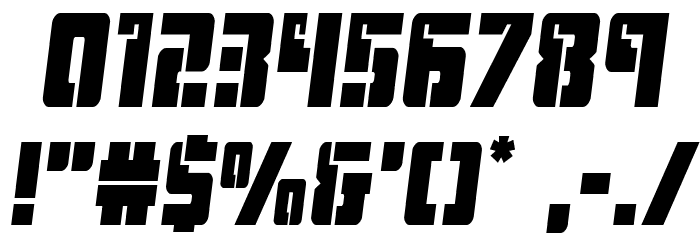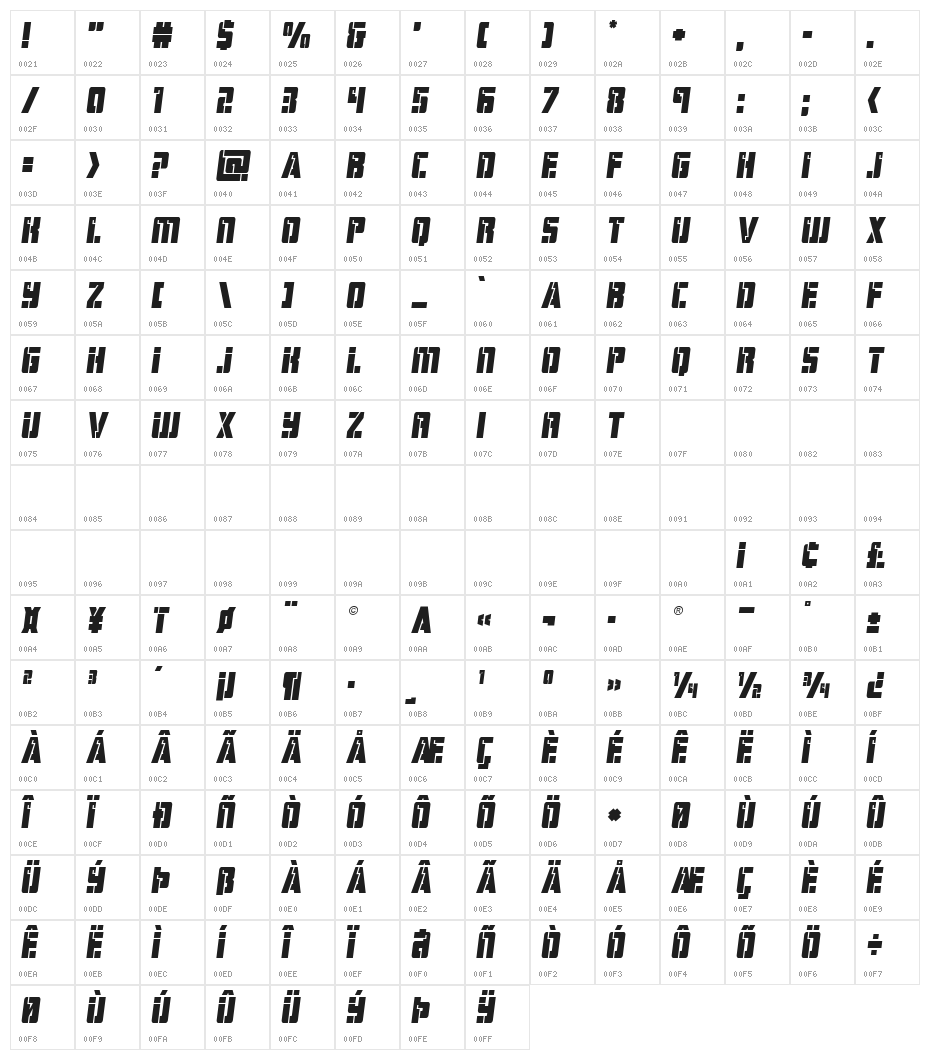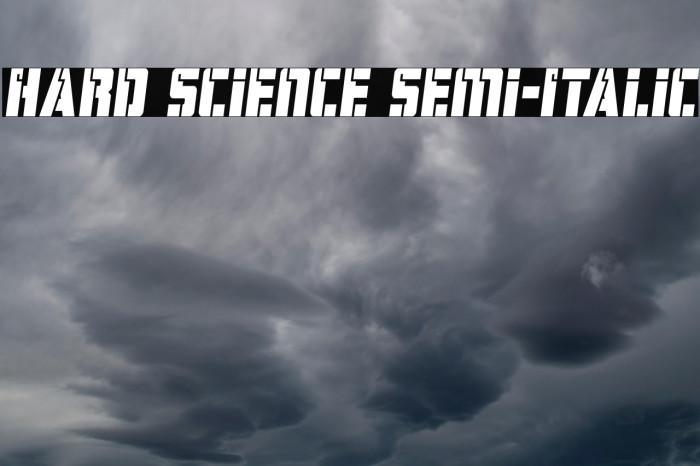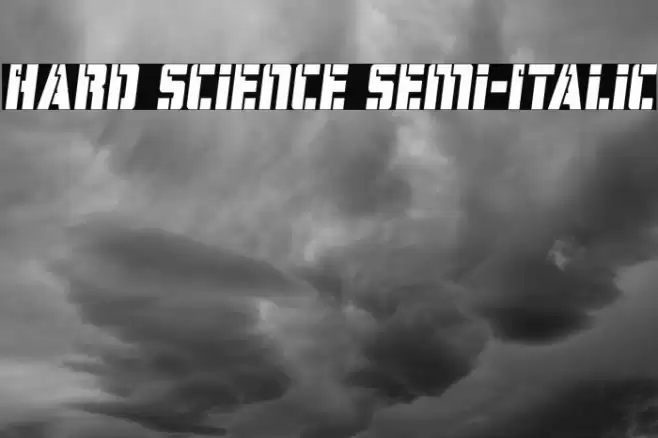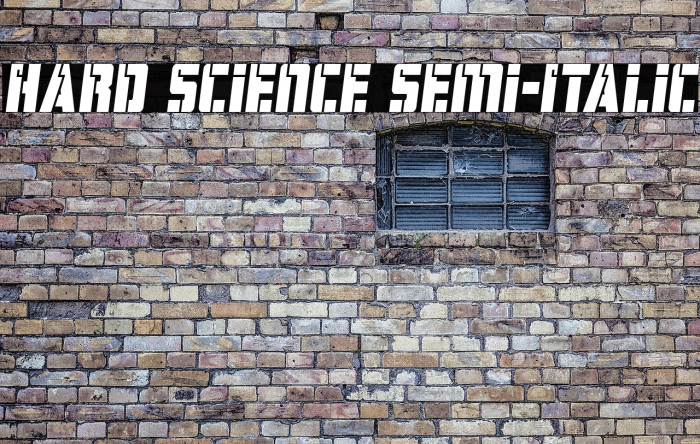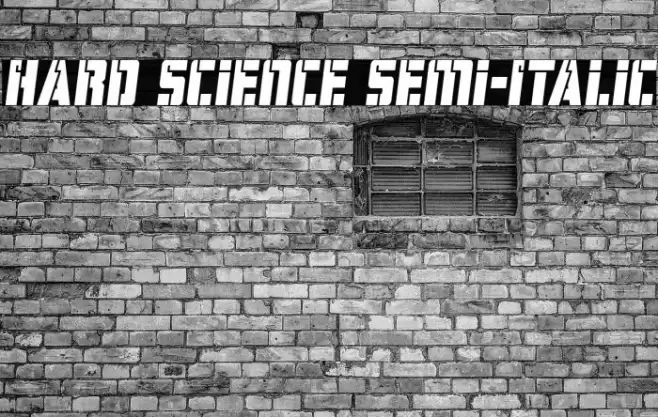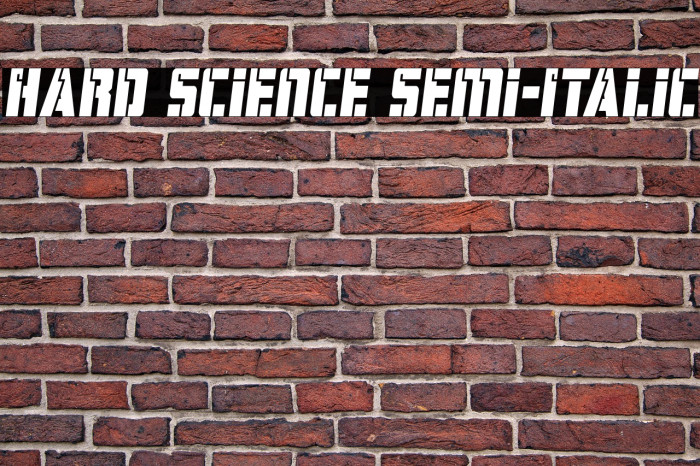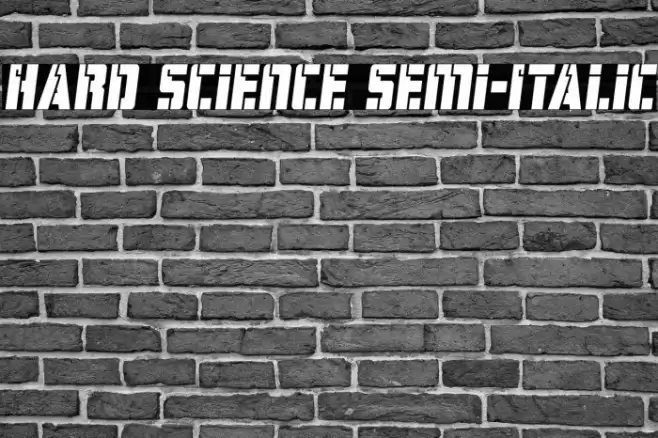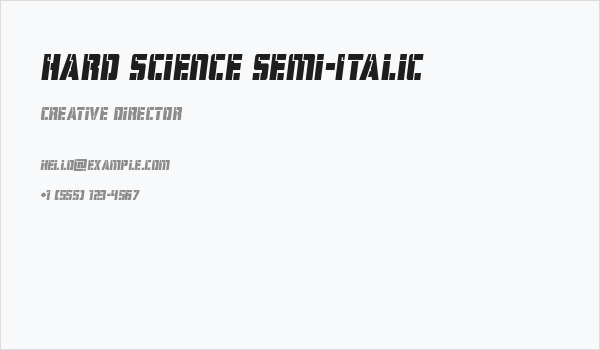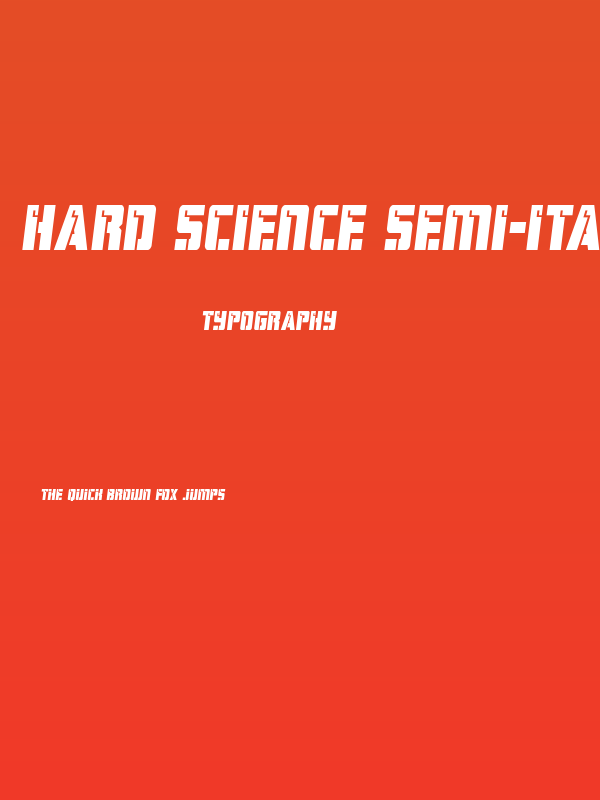
Hard Science Semi-Italic Font
Hard Science Semi-Italic Description
This font features a bold and dynamic style with a futuristic and industrial feel. The characters are constructed with sharp angles and geometric shapes, giving them a strong and assertive presence. The semi-italic slant adds a sense of motion and energy, making it suitable for attention-grabbing designs. The uppercase and lowercase letters maintain a consistent width, while the numbers and special characters are designed to complement the overall aesthetic. The font's unique design elements make it stand out, making it ideal for projects that require a modern and edgy look.
| Proposed Projects | Ideal for sci-fi movie posters, tech branding, video game covers, and modern advertising. |